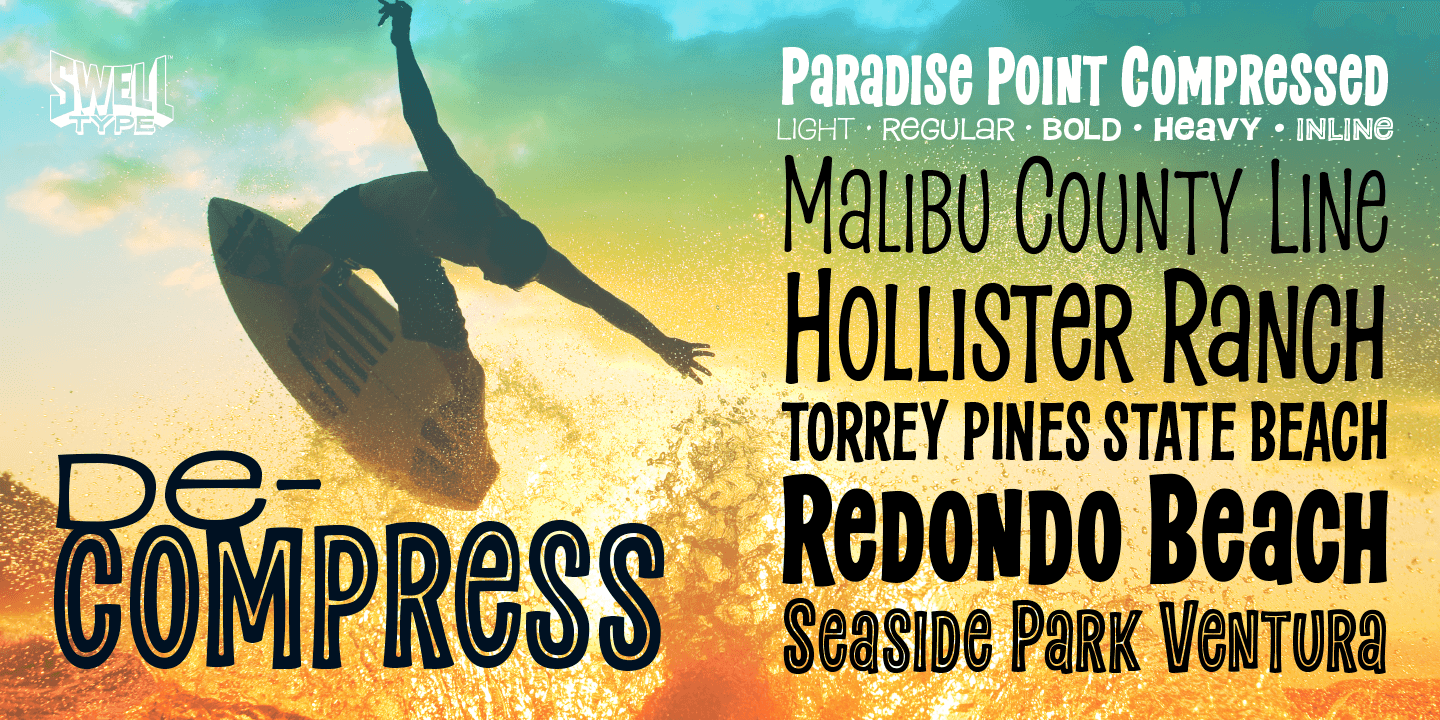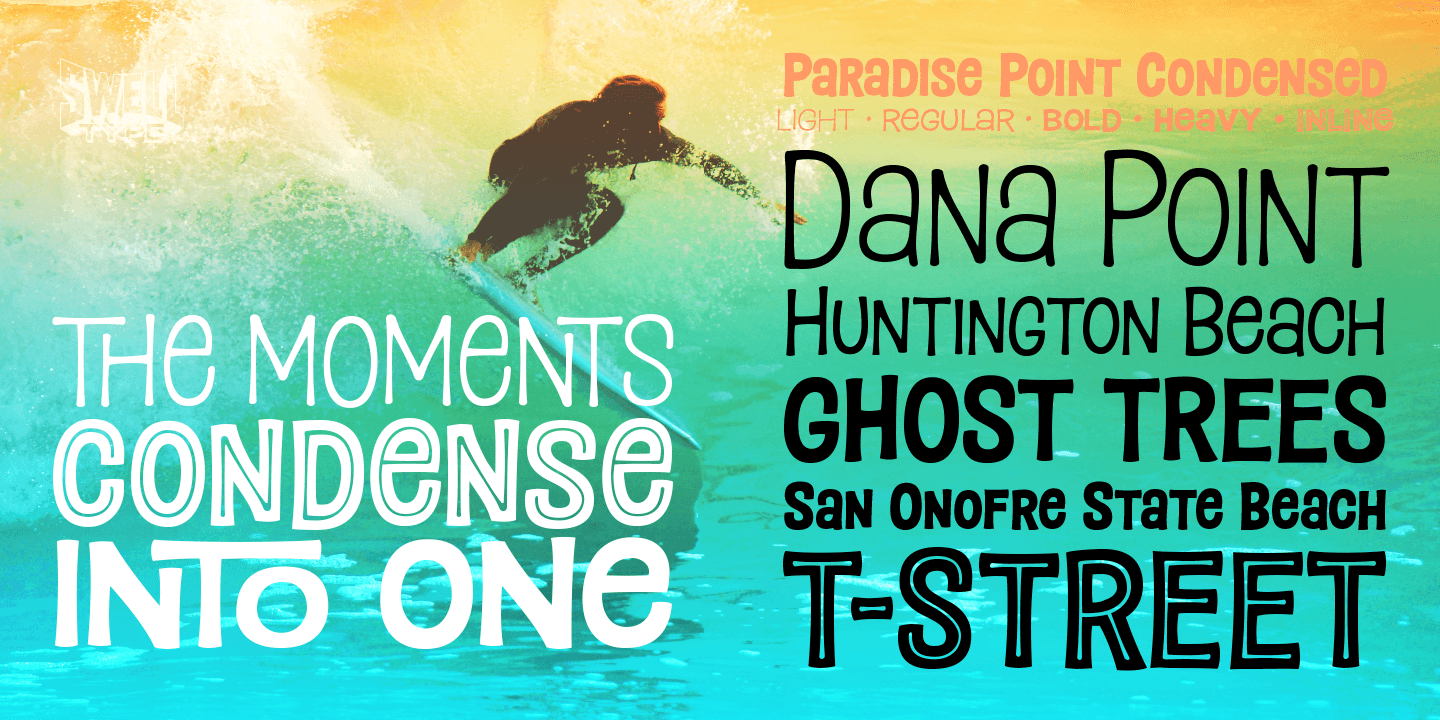
Paradise Point
About Paradise Point
Surf\’s up! Take an unforgettable adventure to the sparkling shores of Paradise Point. Ride our 25 majestic weights, from tranquil tall & thin to thunderous wide & heavy. Expand your horizons with the versatile Variable font to select any spot between.…